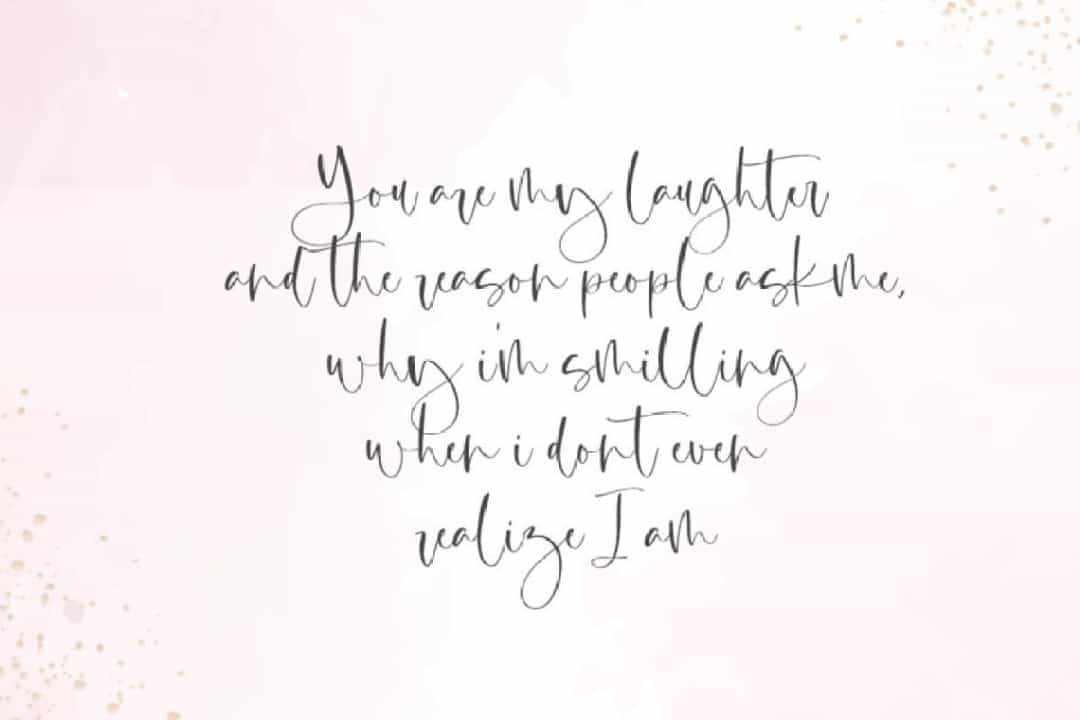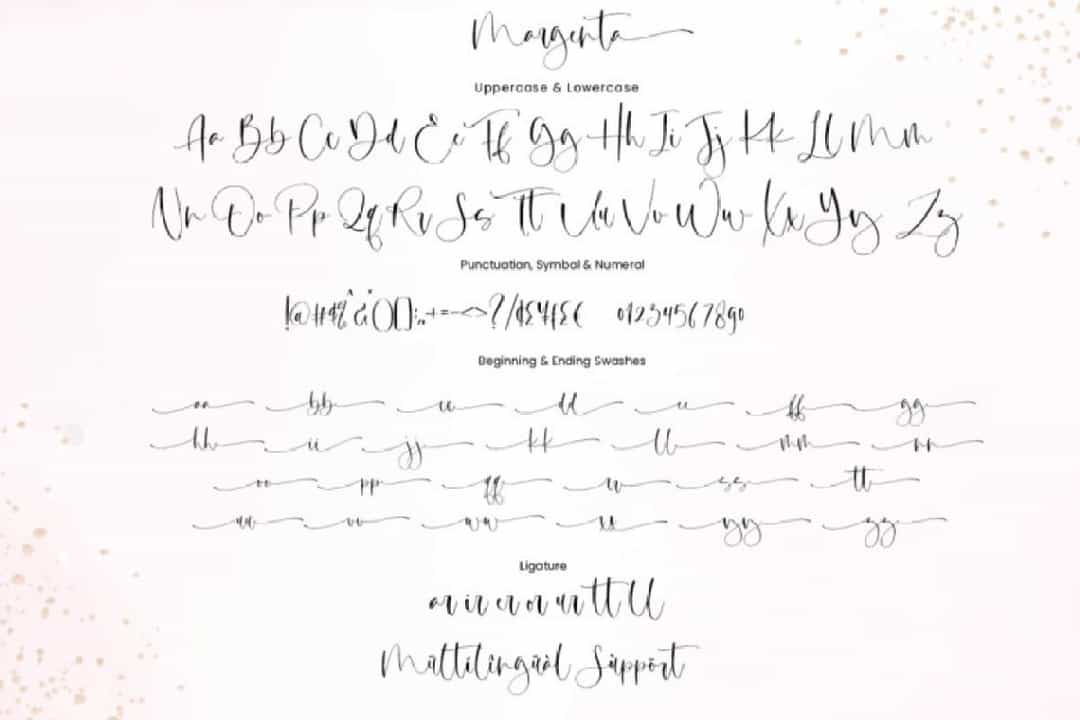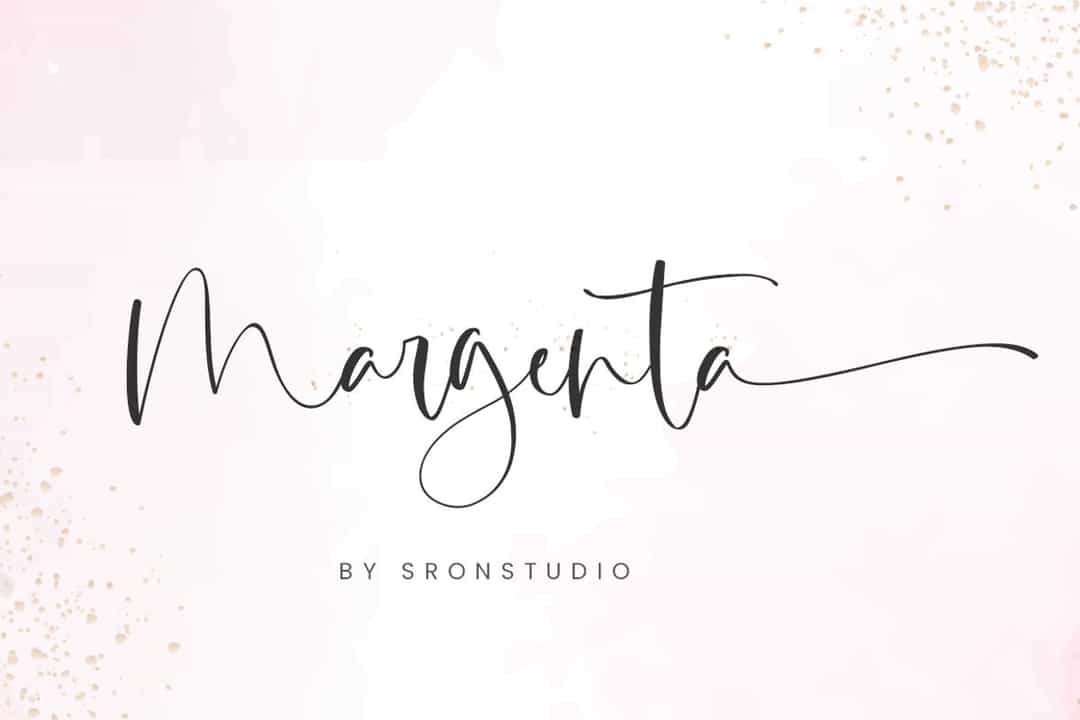
Discover Margenta Calligraphy Script Font, part of the Calligraphy Script collection—a versatile and unique font perfect for adding a personal touch to your projects. Download it for free and enjoy crafting designs with style, from invitations to social media posts. This font is available exclusively for personal use, giving you the freedom to create without limits. Unlock your creativity with Margenta Calligraphy Script Font today!
Margenta is a great calligraphy font that can be used for branding, invitations, wedding invitations, and any other sort of advertisement, social media, packaging, product designs, labels, watermarks, photography, special events, and special events photography and so on in any project that requires calligraphy.